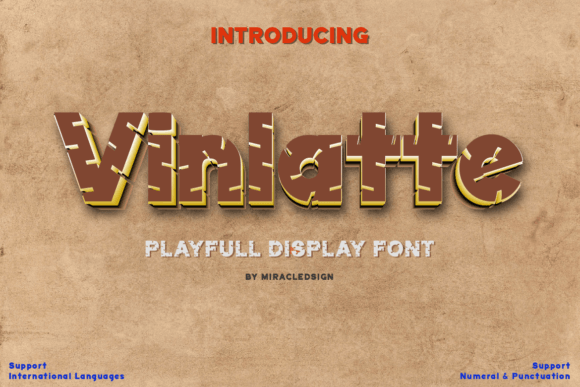
Vinlatte: A Unique Display Font Inspired by Cake Toppings
In the world of typography, fonts are more than just a means of communication—they are an art form that can elevate design, convey emotion, and add personality to any visual project. One such font that stands out for its distinctiveness is Vinlatte. This display font draws inspiration from the intricate beauty of cake toppings, creating a style that is both elegant and original. With its hollow accent and unique character design, Vinlatte offers a fresh approach to typography that can transform any project into something truly memorable.
What Is Vinlatte?
Vinlatte is a display font designed to capture the essence of cake toppings through its visual structure. Each character is crafted with a hollow or cavity-like accent, giving it a three-dimensional appearance that mimics the texture of frosting, sprinkles, or other decorative elements found on cakes. This design choice not only makes the font visually striking but also adds a sense of depth and uniqueness that sets it apart from traditional typefaces.
The font is built upon the foundational anatomy of standard letters, ensuring that it remains legible while incorporating the distinctive hollow accents. This combination of structure and creativity allows Vinlatte to be both functional and artistic, making it suitable for a wide range of applications.
Key Features of Vinlatte
The Purpose and Significance of Vinlatte
Vinlatte was created with the intention of adding a unique visual element to design projects. Its inspiration from cake toppings reflects a desire to blend the beauty of food with the functionality of typography. This fusion results in a font that is not only aesthetically pleasing but also emotionally engaging, as it evokes the warmth and joy associated with desserts.
For designers, Vinlatte serves as a tool to express creativity and stand out in a competitive market. Its distinct style can be used to draw attention, convey a playful or sophisticated tone, or simply add a touch of elegance to any layout. In this way, Vinlatte is more than just a font—it is a statement.
Moreover, the use of a hollow accent in each character introduces a level of intricacy that can enhance the overall design. This detail-oriented approach ensures that Vinlatte is not just a font, but a piece of art that complements the message it conveys.
How Vinlatte Fits Into Modern Life
In today’s fast-paced and visually driven world, the importance of good design cannot be overstated. From marketing materials to social media posts, the right font can make a significant difference in how a message is received. Vinlatte, with its unique and eye-catching design, is well-suited for various modern applications.
For example, in the realm of marketing and advertising, Vinlatte can be used to create eye-catching headlines for cake-related businesses, bakeries, or dessert shops. Its design aligns perfectly with the theme of sweetness and indulgence, making it an ideal choice for promoting food products.
In education and children's publications, Vinlatte can bring a whimsical and engaging quality to books, posters, or learning materials. Its playful yet elegant style can help capture the attention of young readers while maintaining a level of sophistication that appeals to older audiences.
Additionally, in digital media and web design, Vinlatte can be used to create visually appealing content that stands out in a crowded online space. Whether it's for a blog post, a website header, or a social media graphic, the font’s unique characteristics can help a brand or individual establish a strong visual identity.
Practical Relevance and Applications
Vinlatte is not just a stylistic choice—it has practical relevance across multiple industries and creative fields. Its versatility allows it to be used in a variety of contexts, making it a valuable asset for designers, marketers, educators, and content creators.
One of the most common uses of Vinlatte is in cake advertisements. For bakeries and dessert businesses, the font’s design mirrors the very product they are selling, creating a cohesive and appealing visual identity. This connection between the font and the product can enhance brand recognition and customer engagement.
Another area where Vinlatte shines is in children's magazines and educational materials. Its playful and elegant style can be used to create headings, illustrations, or text that is both engaging and easy to read. This makes it a great choice for publications aimed at younger audiences who may have shorter attention spans.
Vinlatte is also useful in graphic design templates, where it can serve as a focal point for layouts. Whether designing a poster, flyer, or brochure, the font’s unique style can add a touch of originality that sets the design apart from others.